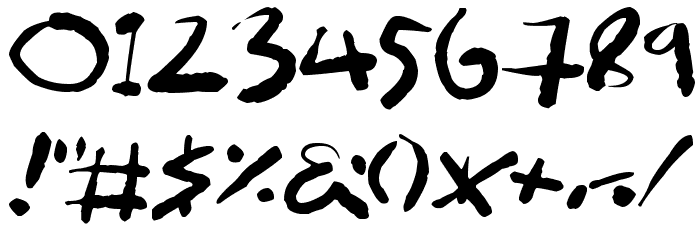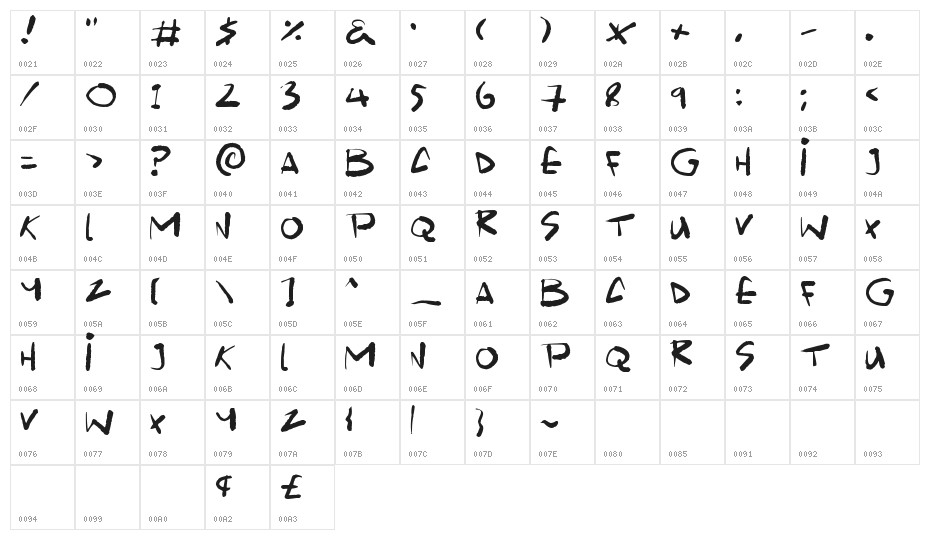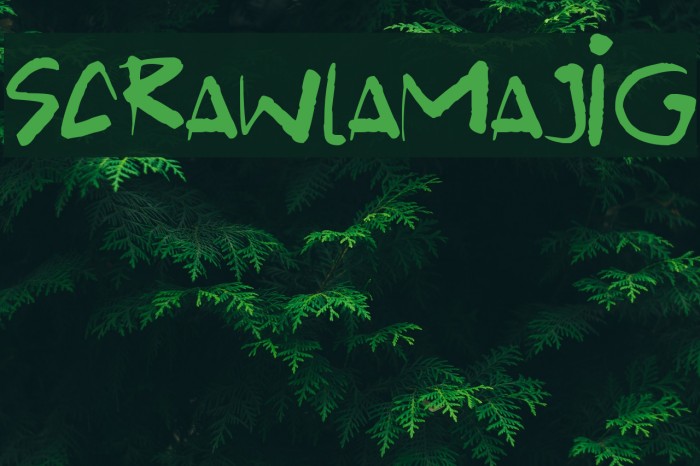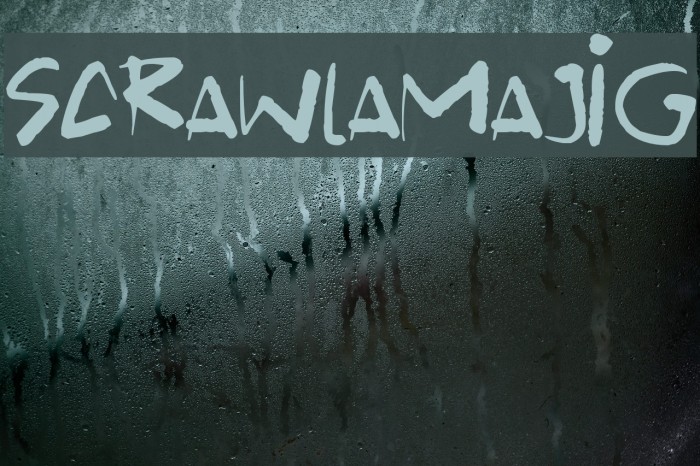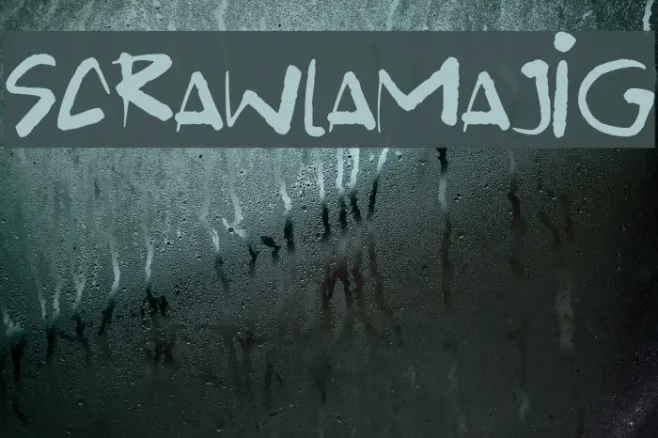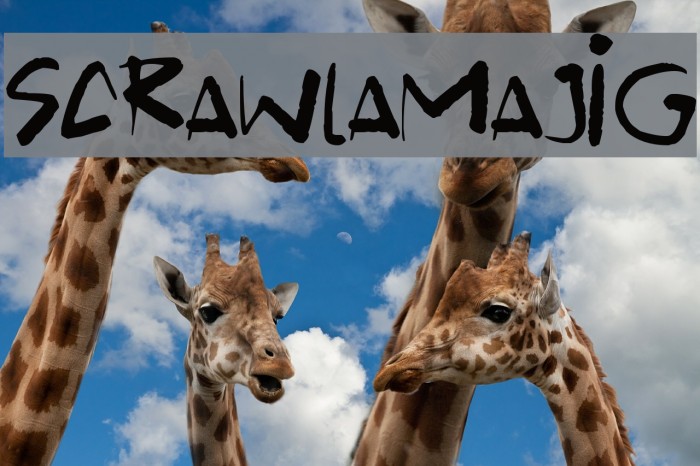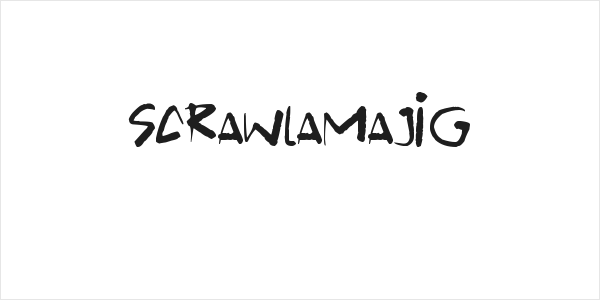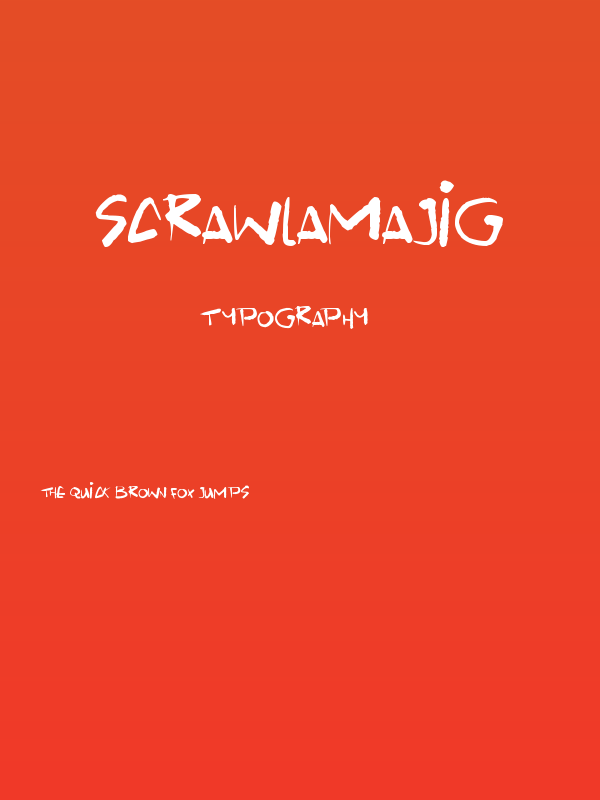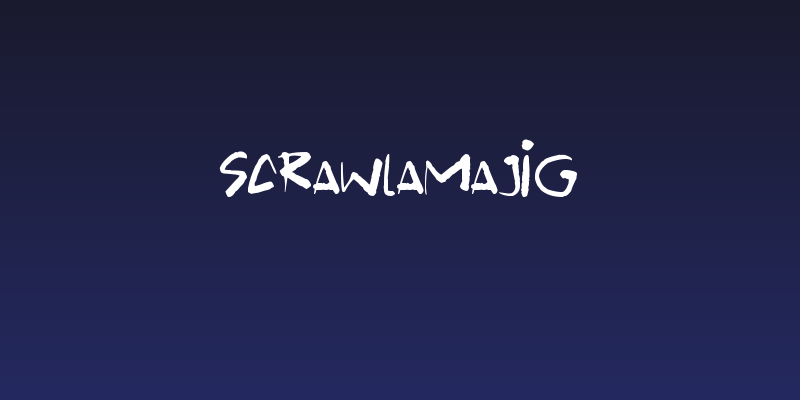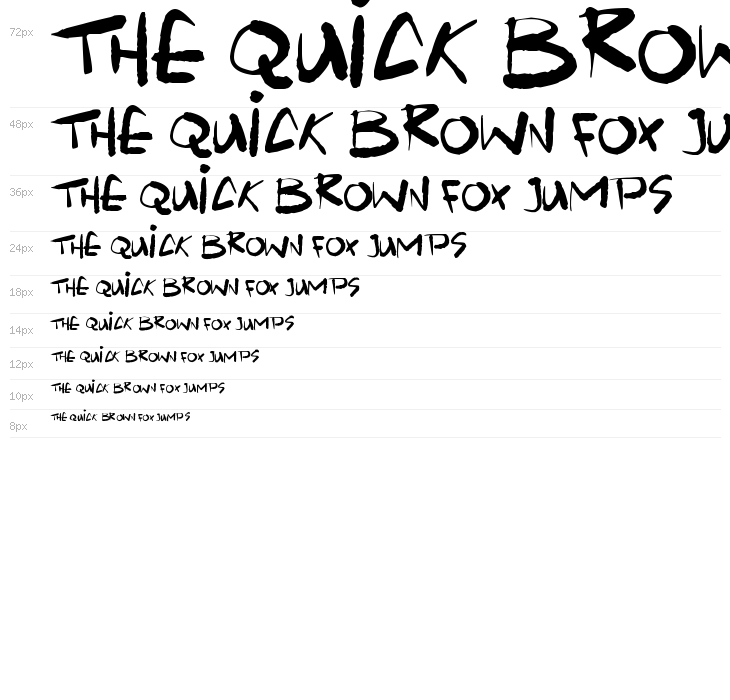
Scrawlamajig Font
Scrawlamajig Description
This font exudes a playful and artistic flair, characterized by its bold, brush-like strokes that give it a hand-drawn appearance. The letters are irregular and dynamic, with varying thicknesses that add to its expressive nature. The uppercase and lowercase letters maintain a consistent style, while the numbers and special characters complement the overall aesthetic. This font is ideal for projects that require a personal touch or a creative edge, such as posters, invitations, or branding materials. Its unique style makes it stand out, ensuring that any text is both eye-catching and memorable.
| Proposed Projects | Ideal for creative projects like posters, invitations, and branding materials. |